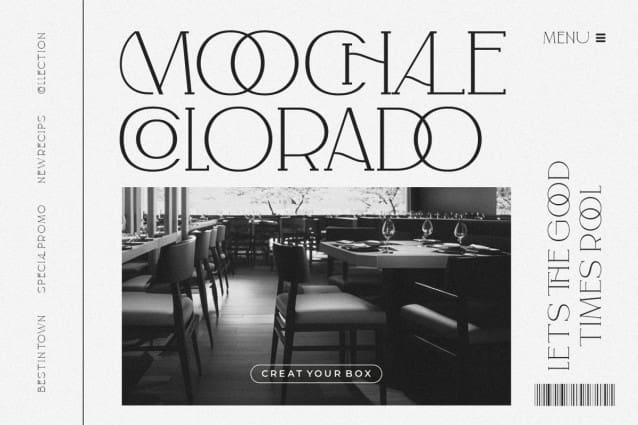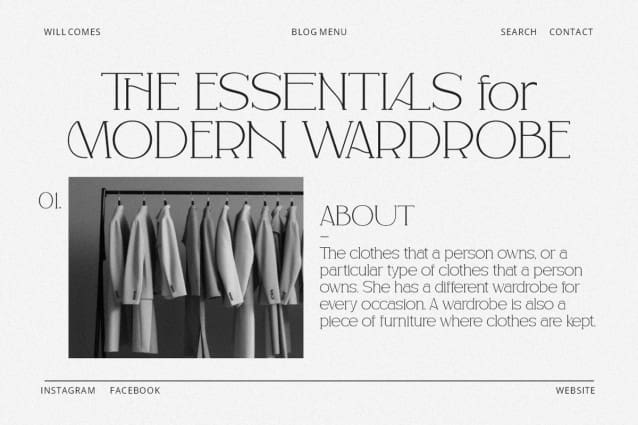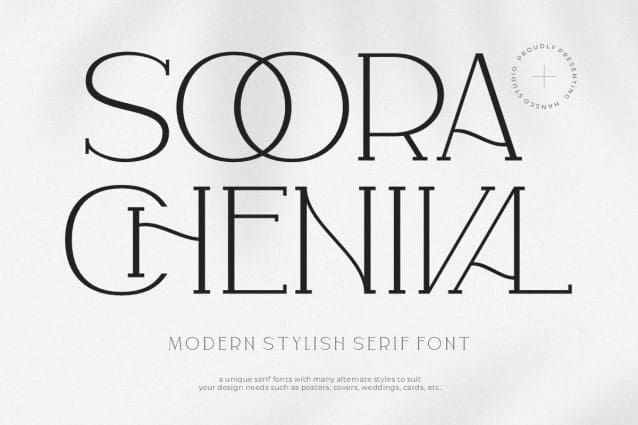
Soora Chenival Font
Soora Chenival Font is a classy display serif font with unique look that is perfect for multipurpose projects. I made Soora Chenival Font inspired by the concept of romantic vibes and made it into a modern yet luxury style. This font is also looks elegant and will fit well in any design and very recommended for logo, crafts, posters, books, branding, quotes, print templates, packaging, invitations, product labels, advertising, wedding project and more. This typeface comes in uppercase, lowercase, with punctuation, symbols, numerals, ligature and stylistic alternates. This font is PUA encoded which means you can access all of the charming glyphs and swashes with Character Map on Windows or Font Book on Mac.